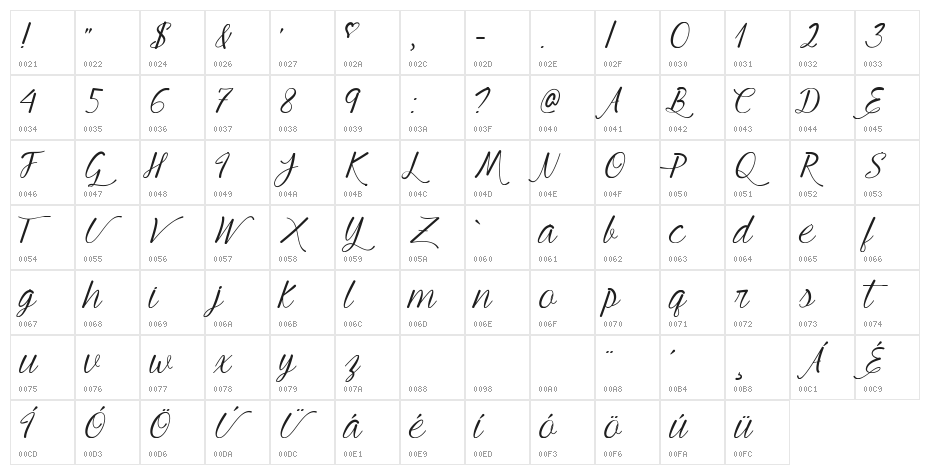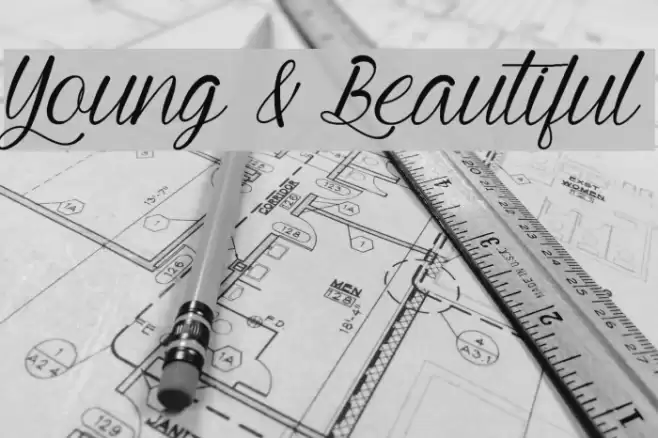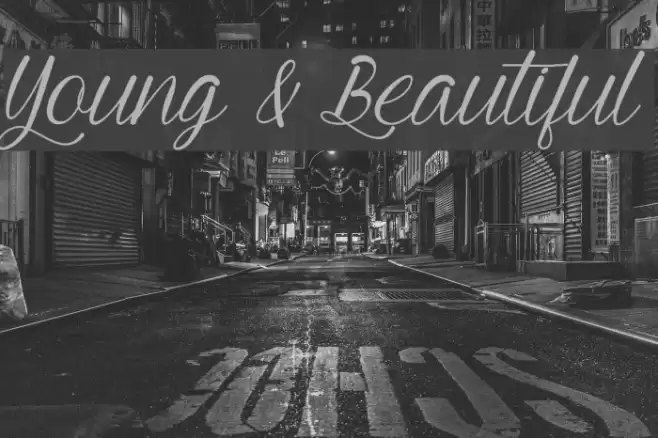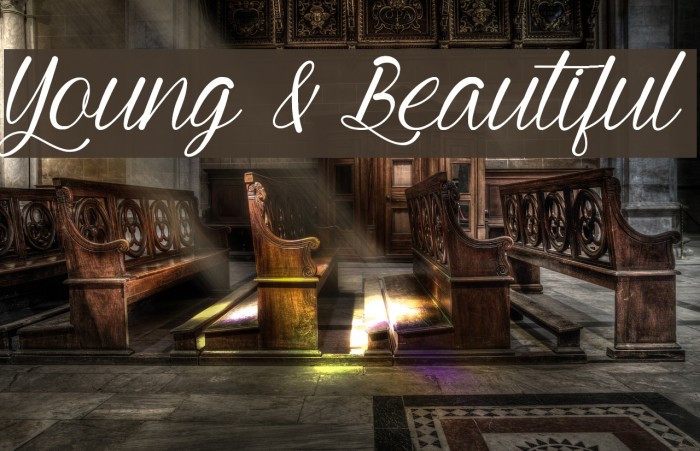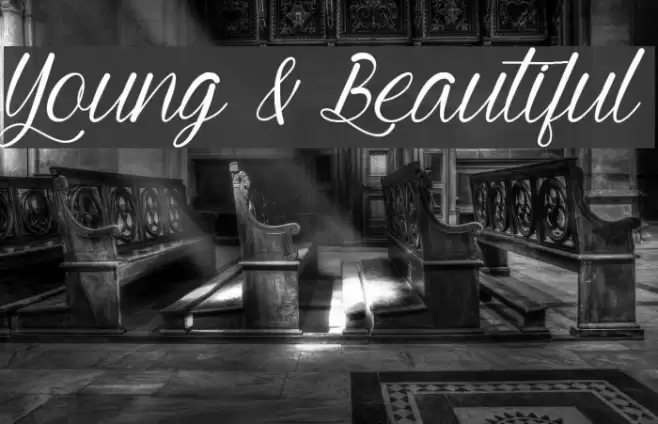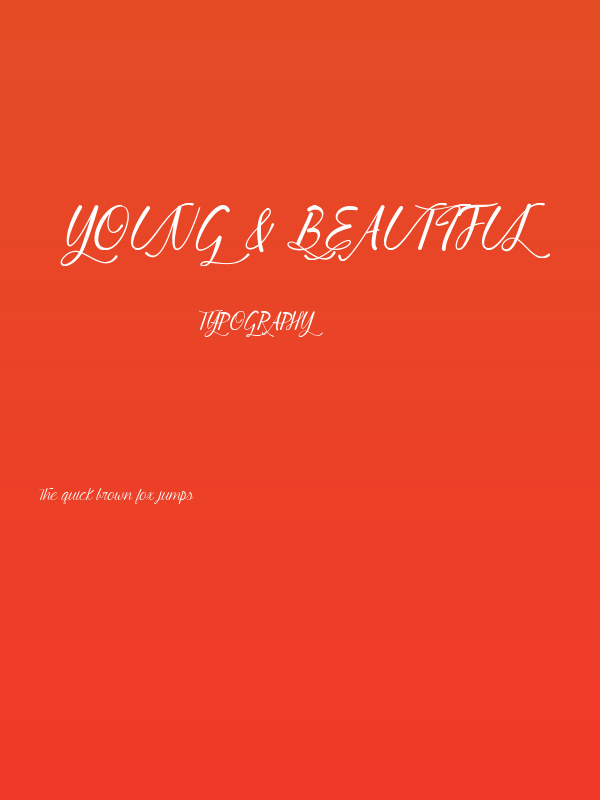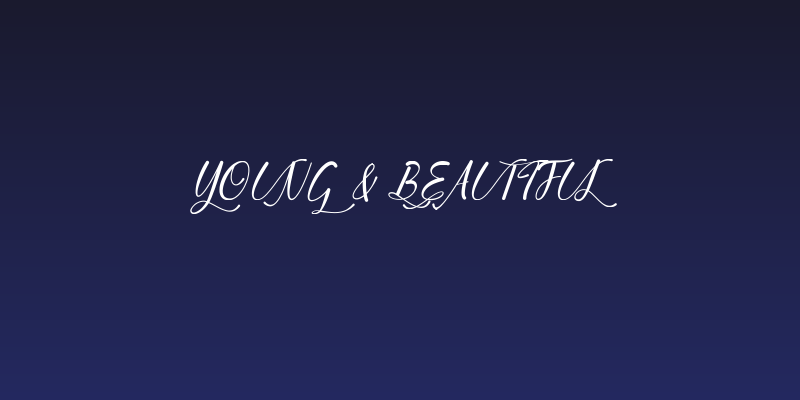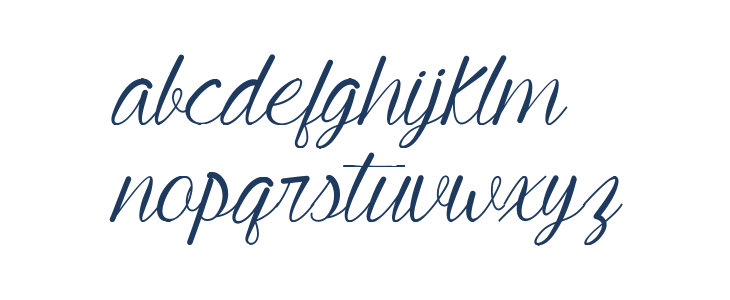
Young & Beautiful Description
This elegant script font features fluid, cursive strokes that convey a sense of sophistication and grace. The uppercase letters are characterized by sweeping curves and flourishes, while the lowercase letters maintain a consistent flow with gentle loops and connections. The numerals are designed with a similar flair, ensuring a cohesive look across all characters. Special characters like the ampersand and question mark are crafted with artistic flair, adding to the font's decorative appeal. The overall style is both modern and timeless, making it suitable for a variety of design applications.